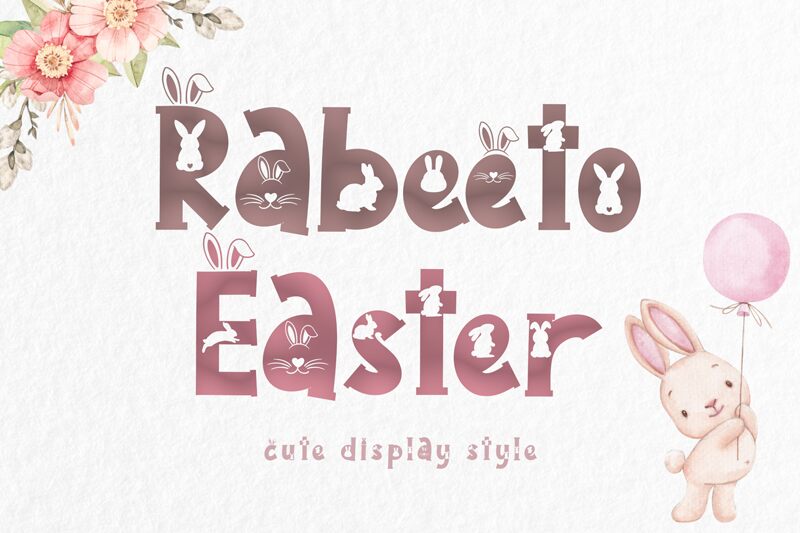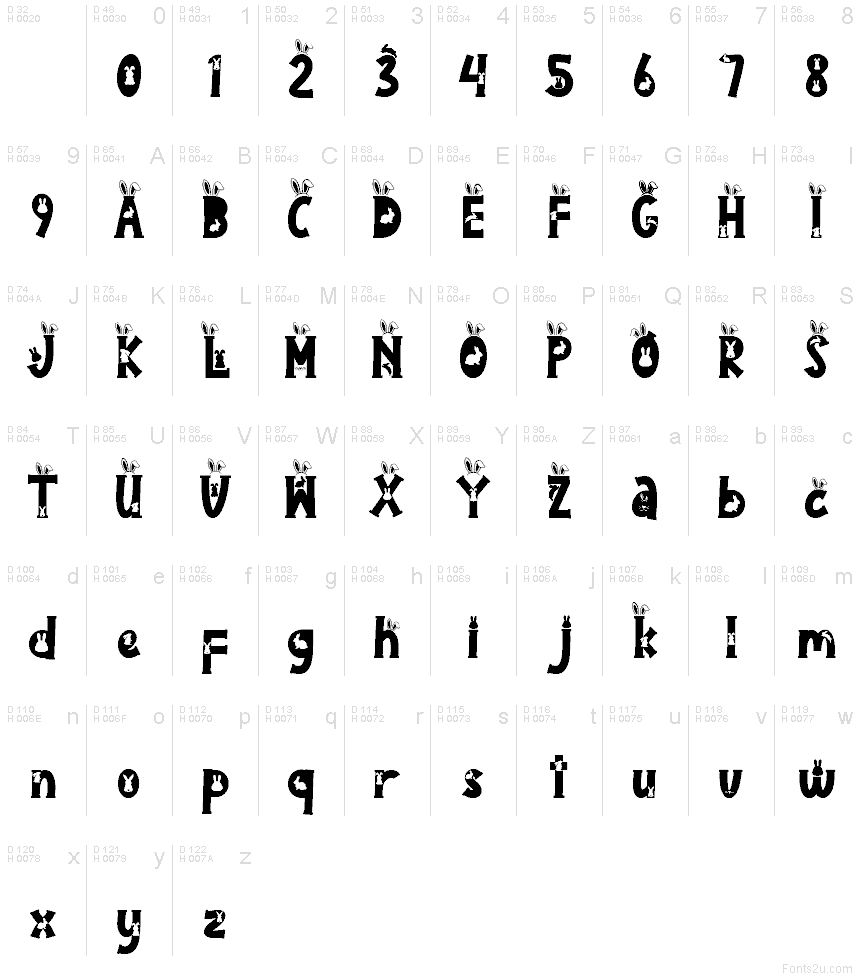
Rabeeto Easter
Rabeeto Easter font by Yoga Letter is a free decorative holiday font that packs every letter with playful Easter charm. Chunky black shapes hide peeking bunny ears, scattered eggs, and little silhouettes, giving text a cut-paper, crafty feel. The letters are bold and tightly sculpted, so even a short word turns into a full Easter scene with lots of texture and character.
Using Rabeeto Easter, headlines and short phrases pop on greeting cards, kids’ party invitations, classroom printables, posters, stickers, and social media promos. This free font works best at larger sizes where the tiny rabbits and eggs can really be seen. For readable details underneath, pair it with a simple rounded sans serif and let Rabeeto Easter handle the fun, attention-grabbing words.